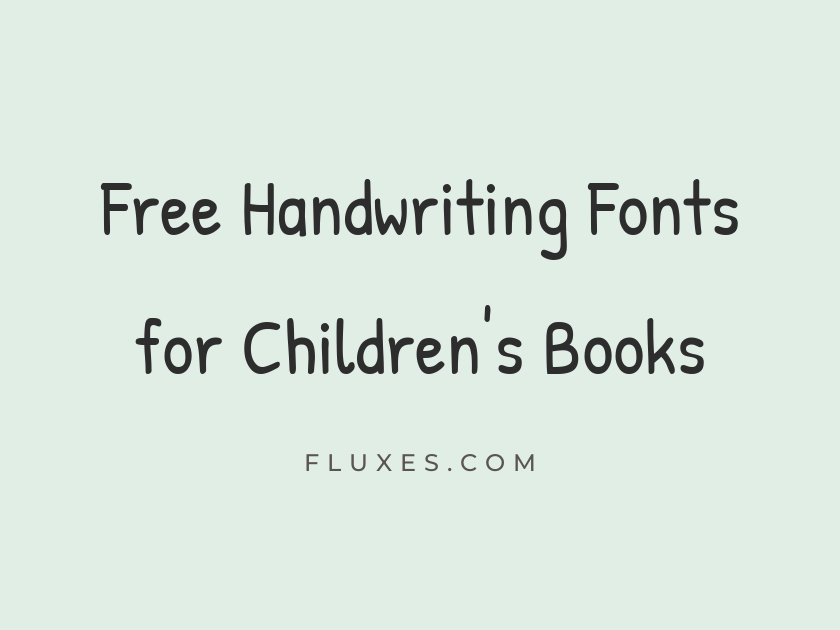
70 Best Free Handwriting Fonts for Children’s Books
A picture book lives or dies by its lettering. The right handwriting font can turn a cover into an invitation, a chapter heading into a little adventure of its own, and a speech bubble into a giggle. Because most trade publishing budgets do not stretch to custom lettering, illustrators, self-publishers, and indie authors lean hard on free handwriting fonts from Google Fonts to get that scrawled, crayon-and-marker warmth without paying licensing fees.
What follows is a wide-ranging survey of the best free handwriting and hand-lettered fonts for children’s books: casual scripts that mimic a kid’s own pencil, chalky and crayon textures for spreads about school or bedtime, brush scripts for gentle lullaby-style titles, and bold comic-lettering faces built for shouty dialogue and action scenes.
Patrick Hand is the workhorse of children’s book lettering, a rounded, slightly wobbly script that reads like a patient teacher’s handwriting on a whiteboard. It stays legible at small sizes, which makes it one of the rare handwriting fonts trustworthy enough for body copy in early readers, not just headlines.
Patrick Hand SC
Take the same friendly warmth as its lowercase sibling and cap it entirely, and you get a small-caps variant that suits title pages and chapter openers needing a bit more formality without losing the handmade charm.
Schoolbell looks exactly like its name suggests: the loopy, slightly uneven print of a second grader practicing cursive homework. It is a natural fit for journal-style picture books, worksheets, or any story told through a child narrator’s own “handwritten” notes.
Coming Soon
Casual and unfussy, Coming Soon reads like a quick note left on the fridge. Its restrained looping makes it easy to drop into captions or sidebars without competing with illustrations.
Named for the informal lettering architects use on blueprints, this font has a confident, unhurried slant that feels grown-up enough for narration yet still handmade. It pairs nicely with clean sans-serif body text when a book wants one voice for the story and another for character asides.
Caveat is one of the most versatile free handwriting fonts on Google Fonts, with a natural rhythm that avoids the stiffness many script fonts fall into. It works equally well as a warm chapter title or as scrawled marginalia beside an illustration, and its wide weight range means it can whisper or shout depending on the moment.
Caveat Brush
The brush-tipped cousin of Caveat trades ballpoint precision for a thicker, inkier stroke, giving it more presence on a book cover. Save it for titles rather than paragraphs; the heavier strokes can blur together at small sizes.
Kalam has an easy, looping warmth borrowed from Indian handwriting traditions, and it holds up well in multiple weights, so a single family can carry both gentle narration and bolder emphasis.
Light, breezy, and a little wistful, this font suits bedtime stories and lullaby-themed spreads. It gets thin at small sizes, so keep it for titles and short captions rather than long paragraphs.
Shadows Into Light Two
A bolder, slightly more grounded take on its predecessor, this version holds its shape better on busy backgrounds while keeping the same dreamy, storybook cadence.
Round, bubbly, and cheerful, Indie Flower feels like it was drawn with a fat marker by a happy kid. It is a favorite for picture book covers aimed at preschool and early elementary readers because of its instant, unthreatening friendliness.
Gochi Hand has a fine, felt-tip quality with just enough irregularity to feel personal rather than printed. It reads cleanly in short bursts, making it a good choice for captions under illustrations.
Gaegu
Playful and a touch clumsy in the best way, Gaegu leans into the charm of a child’s own printing rather than cursive flow, which suits stories about very young characters.
Reenie Beanie
Reenie Beanie is quick and scrappy, like handwriting dashed off in excitement. Its narrow letterforms make it useful for fitting a long title into a tight cover space.
Nanum Pen Script
Originally designed with Korean in mind but fully equipped for Latin text, Nanum Pen Script has a soft, rounded pen quality that feels gentle and encouraging, well suited to stories about kindness or courage.
Always test a chosen font at the size it will actually print, especially for board books and small trim sizes. What looks charming at sixty points can turn muddy at ten.
With this many free, genuinely well-made options on Google Fonts, there is little reason to reach for a stiff, generic typeface when a children’s book calls for warmth and personality. Download a few favorites, test them against real illustrations, and let the handwriting set the tone before a single word of the story is even read.